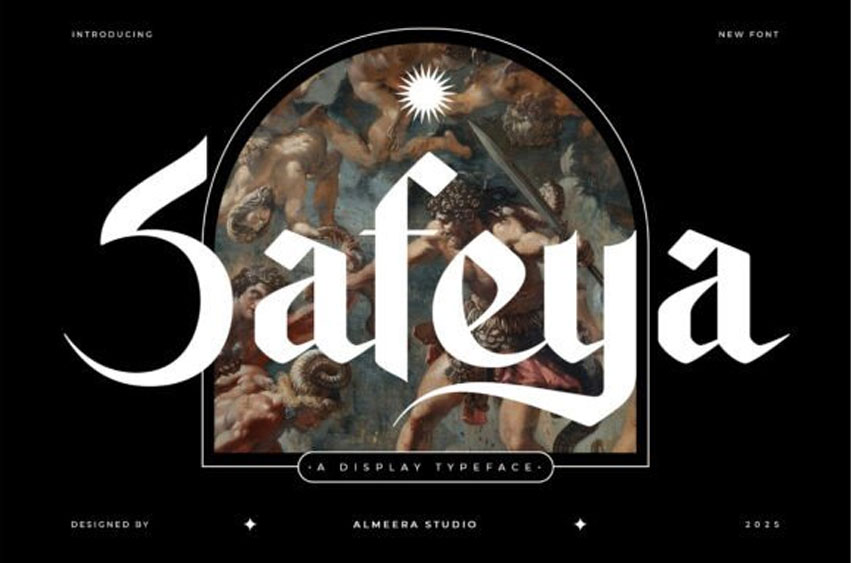
Safeya Font Make a statement with Safeya, a bold display typeface designed for striking headlines and impactful branding. Safeya combines modern style with a hint of gothic influence, giving your designs a unique, fashionable, and editorial-ready aesthetic.
Whether you’re working on magazine covers, luxury branding, fashion campaigns, or packaging, Safeya adds a dramatic and stylish touch. With multilingual support and PUA encoding, this typeface is easy to use across all creative platforms.